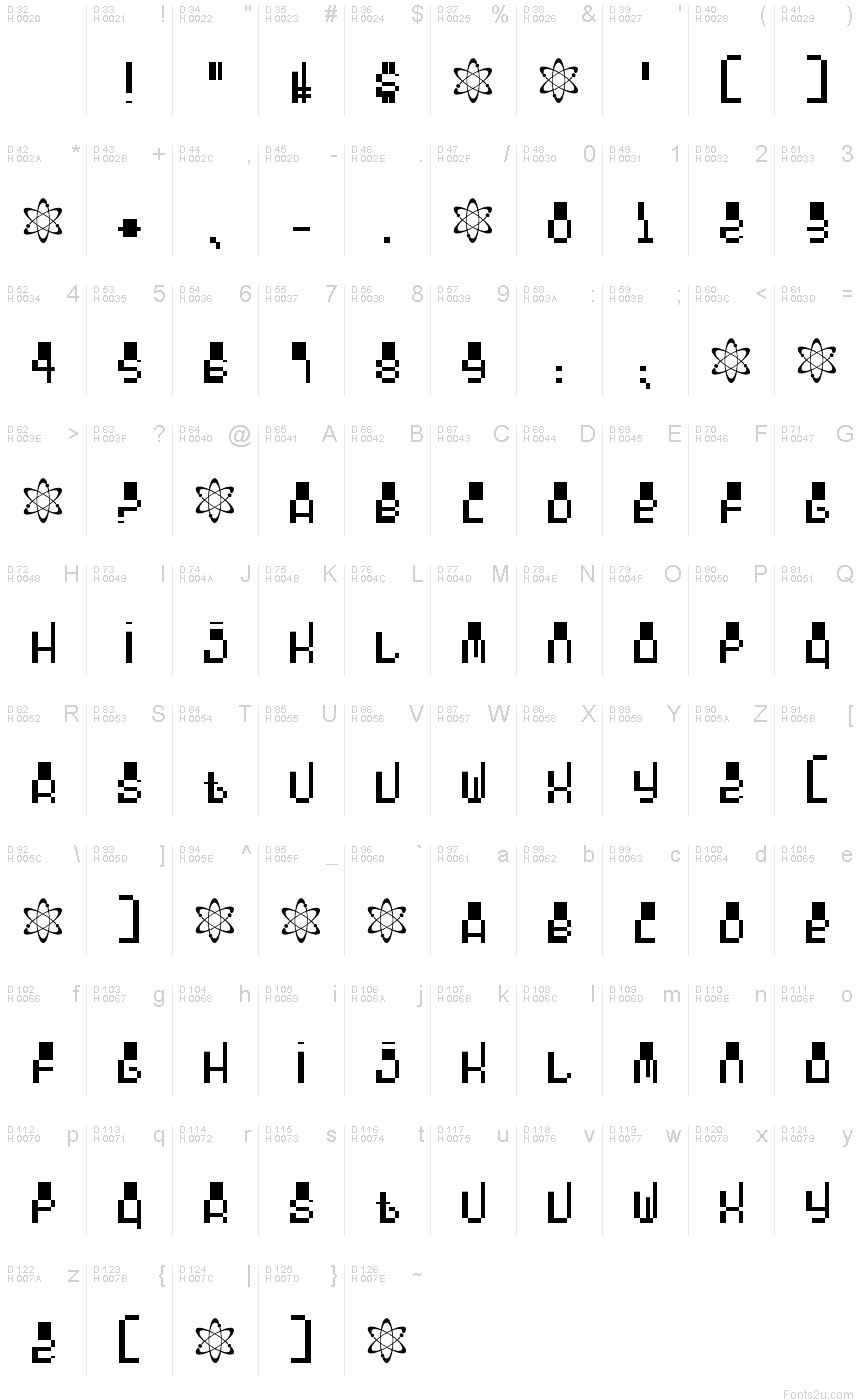
Oddessey 1000
Oddessey 1000 is a captivating bitmap font that exudes a distinct pixelated charm. Designed by Font"a"licious Fonts, this typeface boasts a bold, geometric aesthetic, with each character rendered in a sharp, angular style. The playful, retro-inspired appearance lends itself remarkably well to a variety of applications, from vintage-inspired branding and game interfaces to eye-catching headlines and digital art.
Oddessey 1000's striking visual impact and versatility make it a compelling choice for designers seeking to inject a touch of nostalgic digital flair into their creative projects.